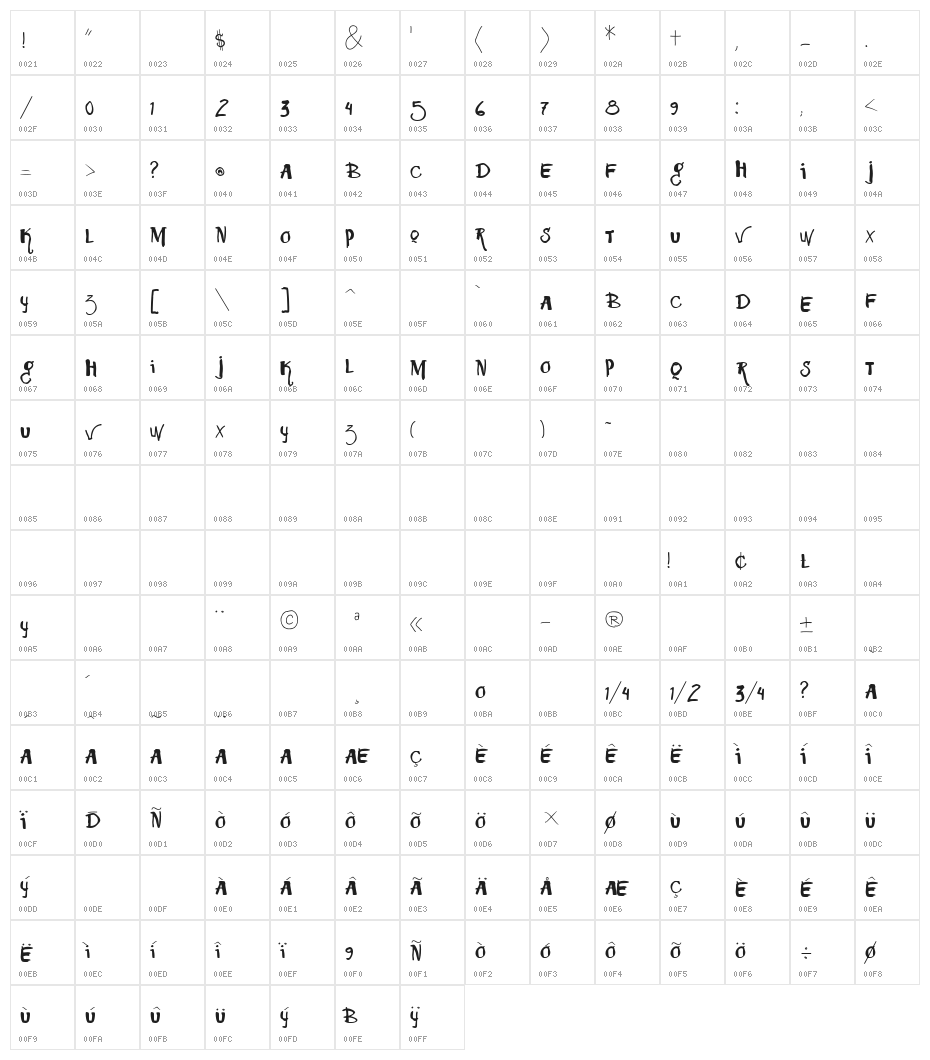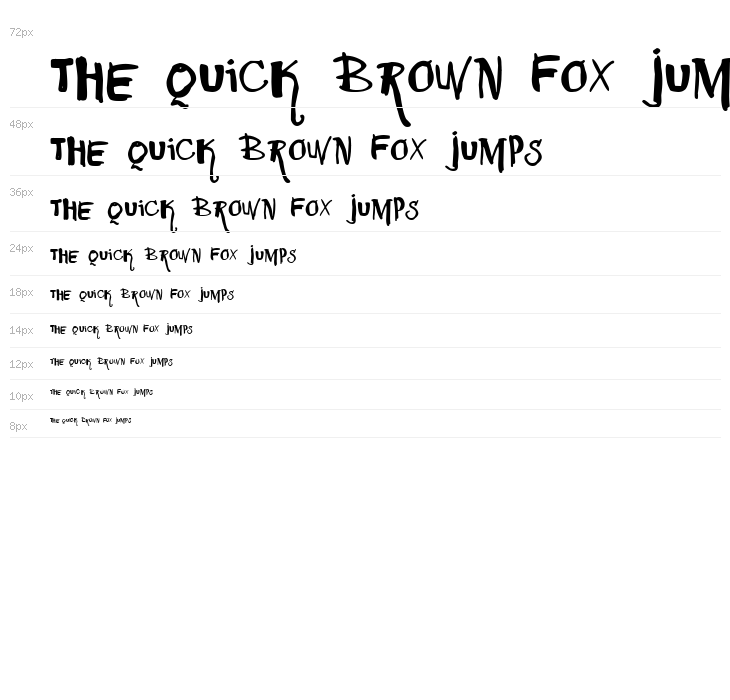
Vtks Squizita Font
Vtks Squizita Description
This font features a unique and artistic style, characterized by its playful and whimsical letterforms. The uppercase letters are bold and dynamic, with varying stroke widths that add a sense of movement and energy. The lowercase letters maintain this lively aesthetic, with some characters featuring unexpected curves and flourishes. The numerals are equally expressive, with a hand-drawn quality that complements the overall design. Special characters are creatively styled, adding to the font's decorative appeal. This font's distinctive look makes it ideal for projects that require a touch of creativity and flair.
| Use Case | Headlines, Logos, Artistic designs |
| Proposed Projects | Ideal for creative projects such as posters, invitations, branding, and artistic designs. |